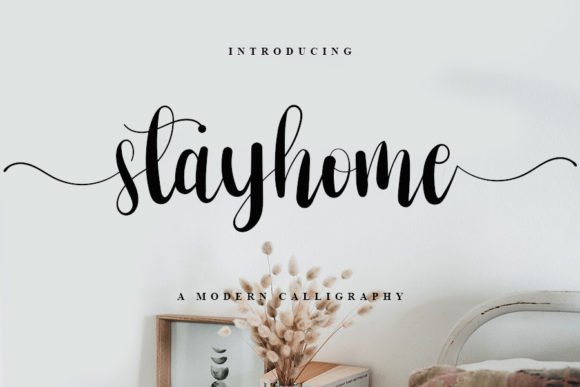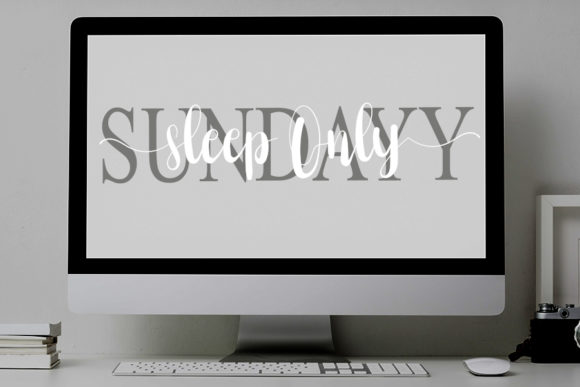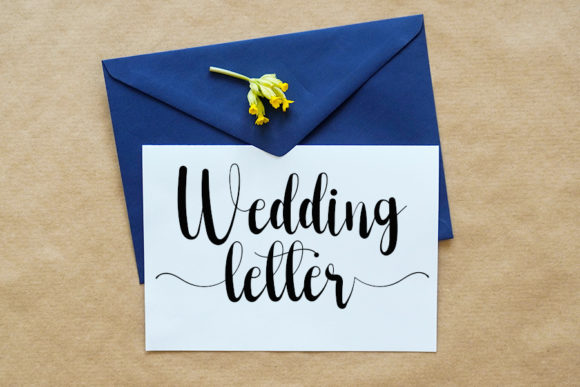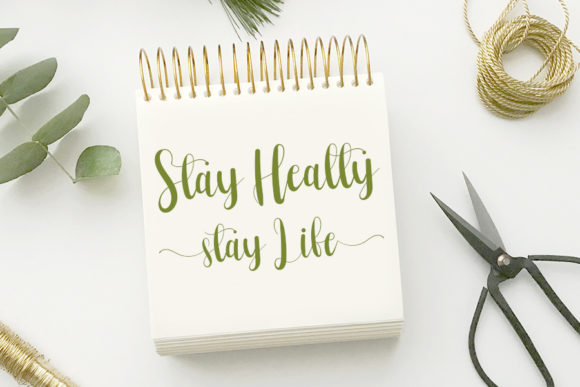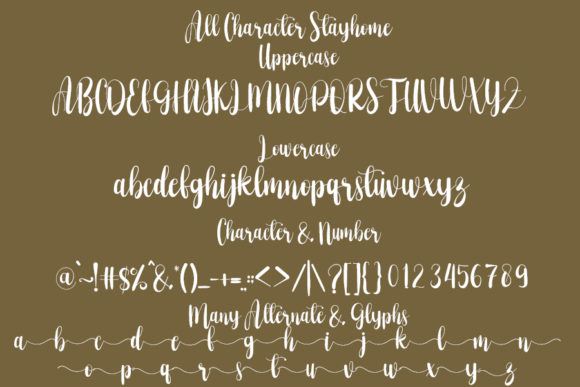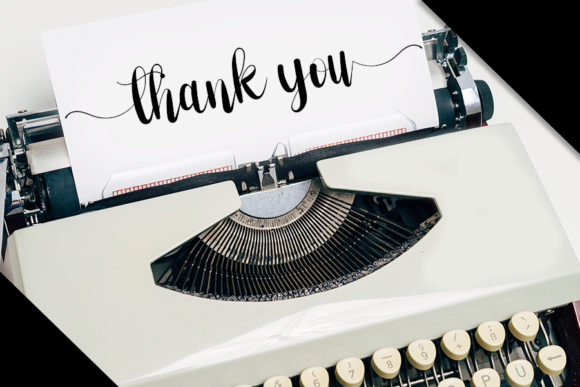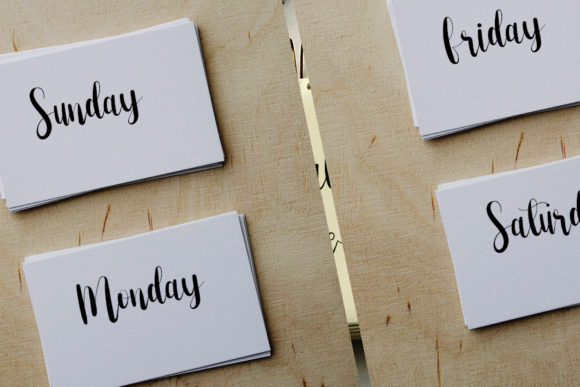
Stayhome Font
About Stayhome Font
Stayhome is an elegant script font, that features a very delicate and classy look. This lovely font will appeal to a wide range of crafty ideas, from letterheads and titles, to stationery. Stayhome is PUA encoded which means you can access all of the glyphs and swashes with ease!